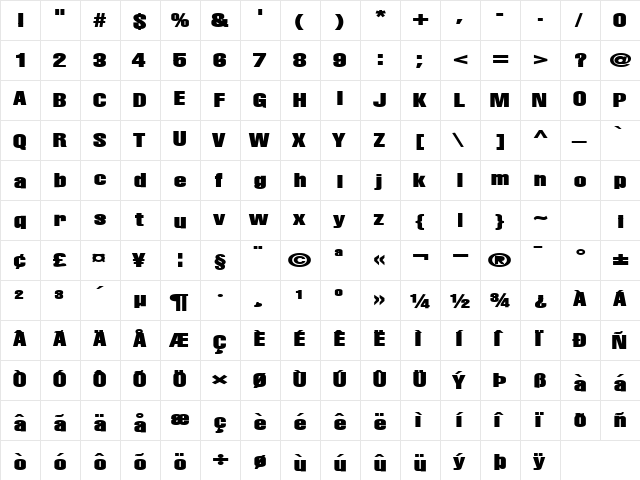
BabyMaker35 Bold
Design Context for BabyMaker35 Typeface
BabyMaker35 takes a measured approach to typography — its balanced proportions and neutral character make it a reliable workhorse for both digital and print work. Its bold stroke weight gives it real presence on the page.